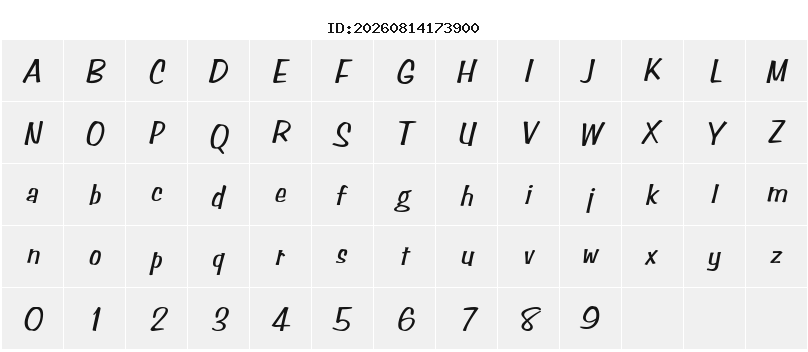
Stimpson Preview
• Font Name: Stimpson
• Font Style: Oblique
• Full Font Name: Stimpson Oblique
About Stimpson.ttf
Stimpson.ttf is a modern, elegant sans-serif font designed for ultimate readability and visual harmony. Perfect for branding, headlines, web design, and print materials.